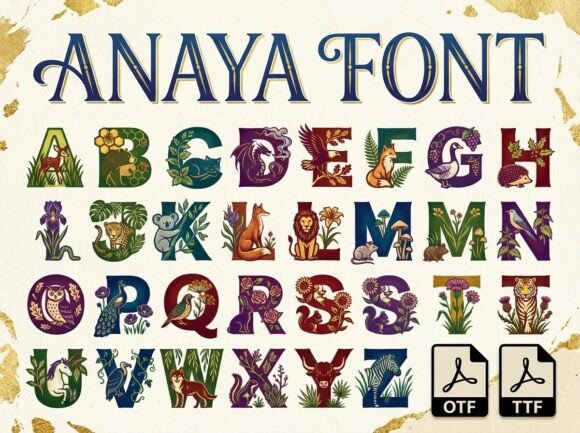
Introducing Anaya Font: The Ultimate Decorative Display Font for Creative Projects
Are you tired of using the same old fonts for your designs? Do you want to add a touch of uniqueness and creativity to your projects? Look no further than Anaya Font, a stunning decorative display font that’s designed to be the center of attention. With its intricate details, creative letterforms, and strong visual personality, this font is perfect for creators who want to break away from the ordinary and make a lasting impression.
What Makes Anaya Font Special?
Anaya Font is a one-of-a-kind decorative display font that features unique artistic elements and a bold visual personality. Its intricate details and creative letterforms make it ideal for high-impact designs where the typography needs to do the talking. Whether you’re designing a modern poster, a unique brand identity, or eye-catching social media content, Anaya Font adds an instant “wow” factor to any project.
Anaya Font is a versatile font that’s perfect for a wide range of design projects, including:
- Poster Design: Create headlines that people can’t look away from. Anaya Font is perfect for designing attention-grabbing posters that showcase your creativity and style.
- Branding & Logos: Build a unique identity for creative businesses. With its bold and artistic letterforms, Anaya Font is ideal for creating memorable logos and brand identities that stand out from the crowd.
- Apparel & Merch: Perfect for T-shirts, hoodies, and tote bag designs. Anaya Font adds a touch of elegance and sophistication to any apparel or merchandise design.
- Social Media: Make your quotes and announcements stand out in the feed. Use Anaya Font to create eye-catching social media content that grabs attention and drives engagement.
- Packaging: Give your products a premium feel with Anaya Font. Its bold and artistic letterforms make it perfect for designing packaging that stands out on store shelves.
Key Features of Anaya Font
So, what makes Anaya Font so special? Here are some of its key features:
- Unique Artistic Elements: Anaya Font features unique artistic elements that set it apart from other fonts.
- Strong Visual Personality: This font has a bold and confident visual personality that’s perfect for making a statement.
- Intricate Details: Anaya Font features intricate details that add a touch of elegance and sophistication to any design.
- Creative Letterforms: The font’s creative letterforms make it perfect for designing unique and memorable typography.
- Versatile: Anaya Font is versatile enough for use in a wide range of design projects, from bold headlines to artistic logos and creative packaging.
How to Use Anaya Font in Your Designs
In conclusion, Anaya Font is a stunning decorative display font that’s perfect for creators who want to break away from the ordinary and make a lasting impression. With its unique artistic elements, strong visual personality, and intricate details, this font is ideal for high-impact designs where the typography needs to do the talking. Whether you’re designing a modern poster, a unique brand identity, or eye-catching social media content, Anaya Font adds an instant “wow” factor to any project. So why settle for ordinary fonts when you can use Anaya Font to create something truly extraordinary?